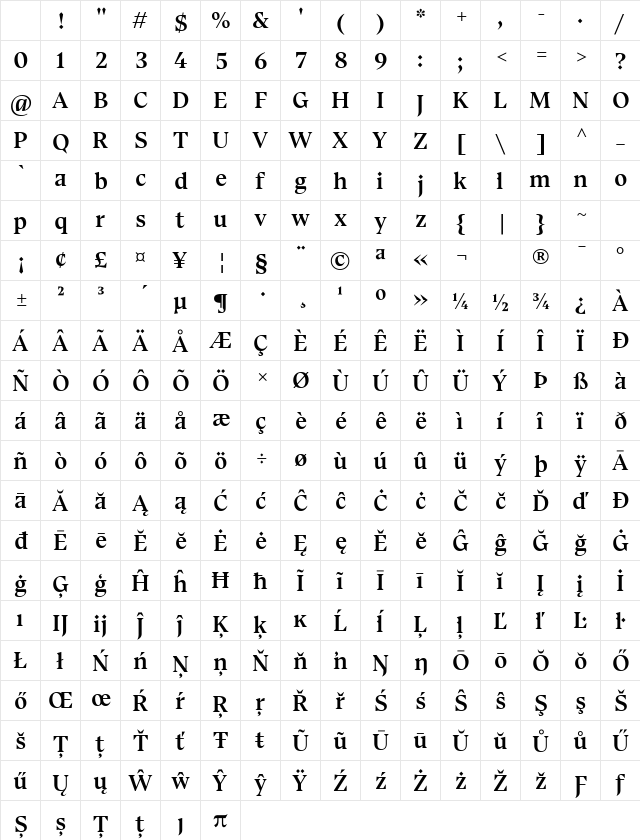
Complete Bluu Suuperstar Medium Regular glyph index. Displaying only characters natively supported by Bluu Suuperstar Medium Regular font.
Bluu Suuperstar Medium is a composed and adaptable typeface that performs quietly and consistently across a wide range of design contexts.